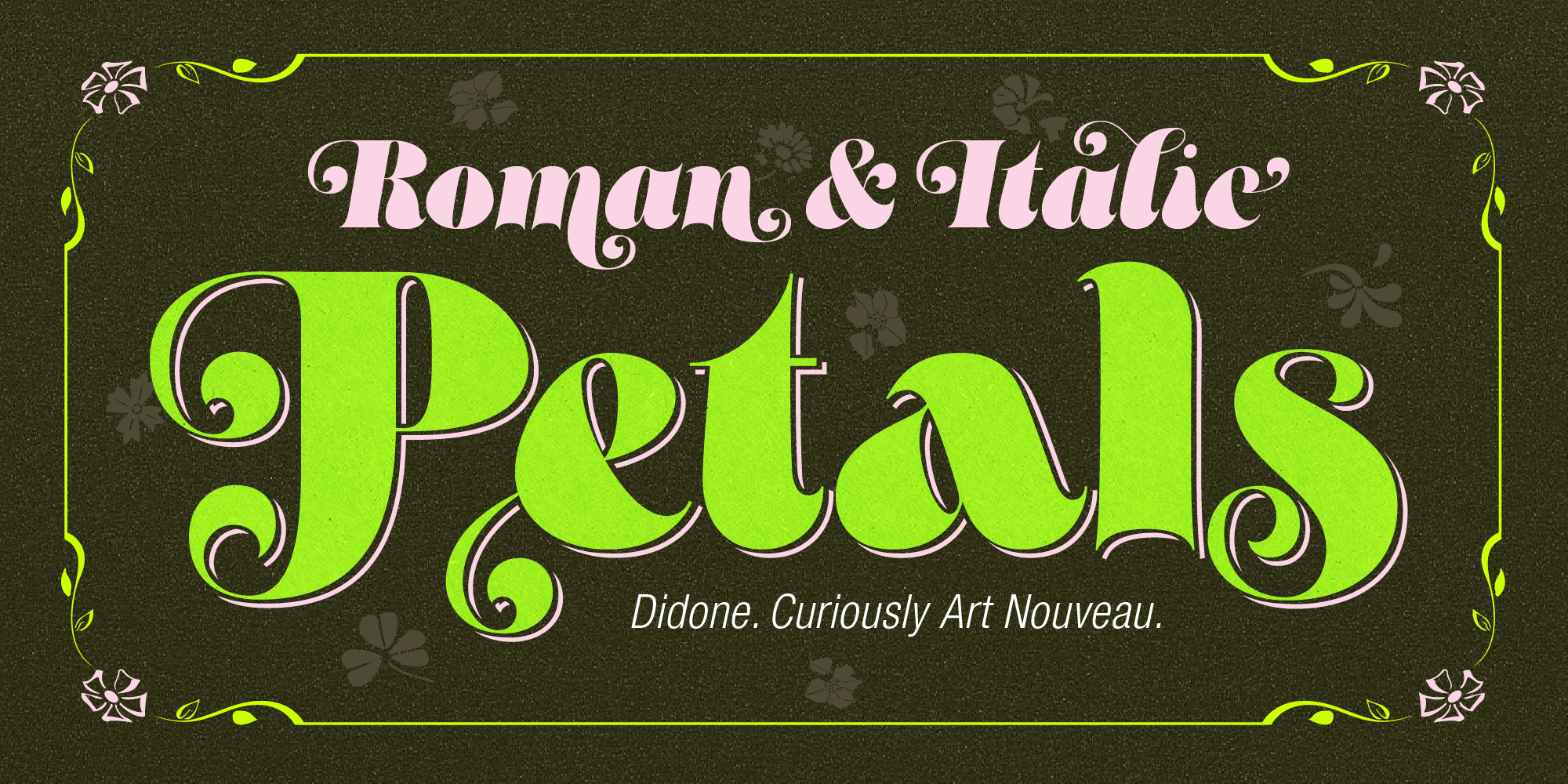
Petals BF Font Free Download is a whimsical, decorative typeface inspired by floral shapes and organic curves. Perfect for wedding invitations, greeting cards, branding, packaging, event posters, and creative projects that call for a touch of elegance and playfulness, this font brings a unique, nature-inspired charm to your designs. Petals BF Font stands out with its intricate, petal-like details, adding beauty and artistry to every letter.
With Petals BF Font Free Download, you’ll receive a complete set of uppercase, lowercase, numbers, and essential punctuation, offering flexibility for both print and digital applications. Whether you’re designing logos for a floral boutique, crafting special event materials, or creating eye-catching packaging, this font ensures readability while delivering a decorative, elegant aesthetic.
Bring natural elegance and whimsical flair to your creative projects with Petals BF Font Free Download. Its floral-inspired style makes it a standout choice for designs that need charm, beauty, and visual interest.